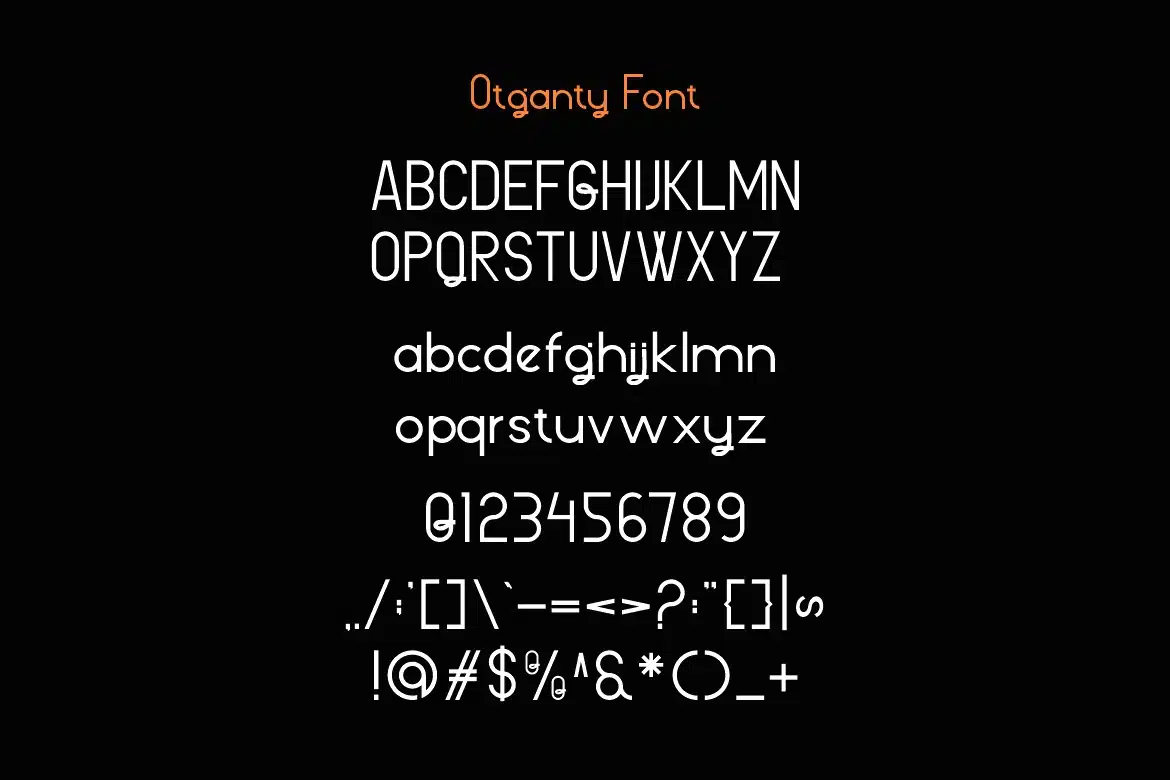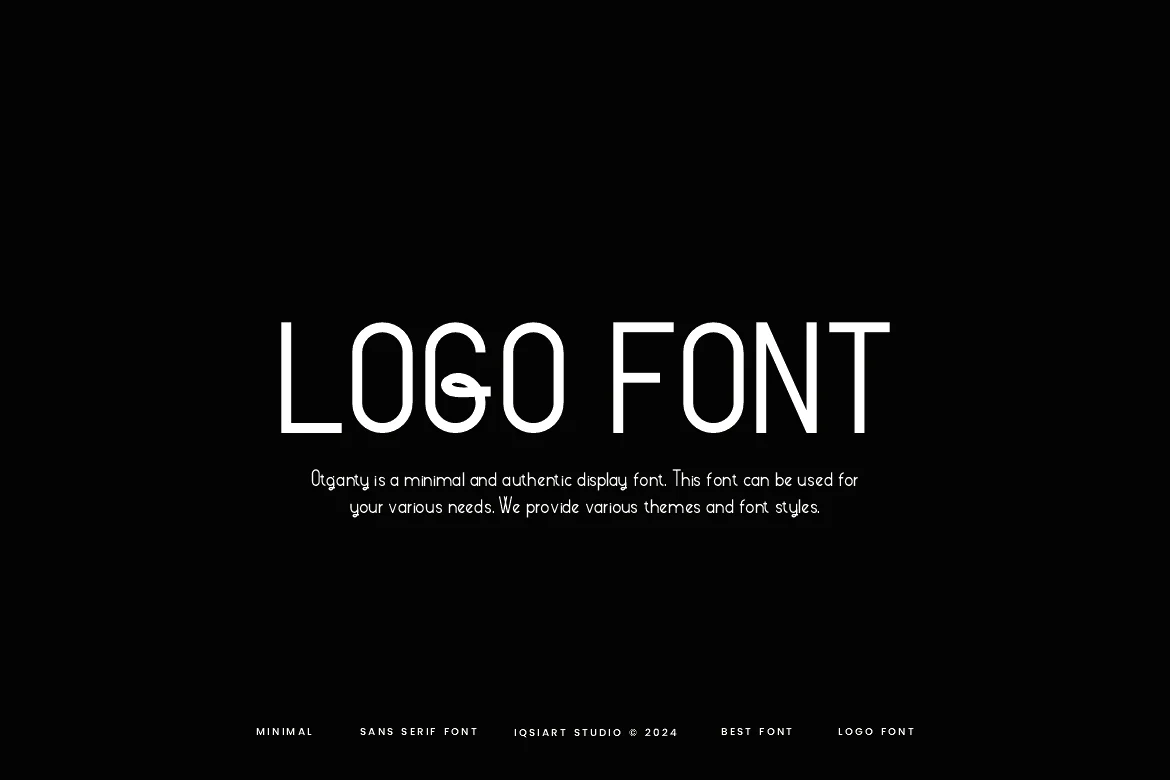
Otganty Font is a sans serif and authentic display font. This font can be used for your various needs. We provide various themes and font styles. visit our profile to get a wide variety of themes and different font styles you need.